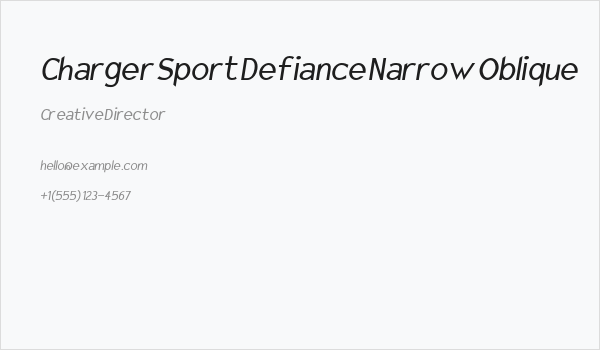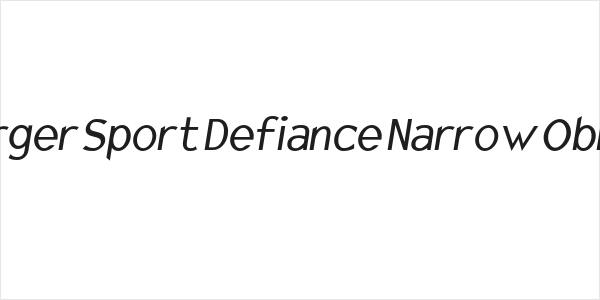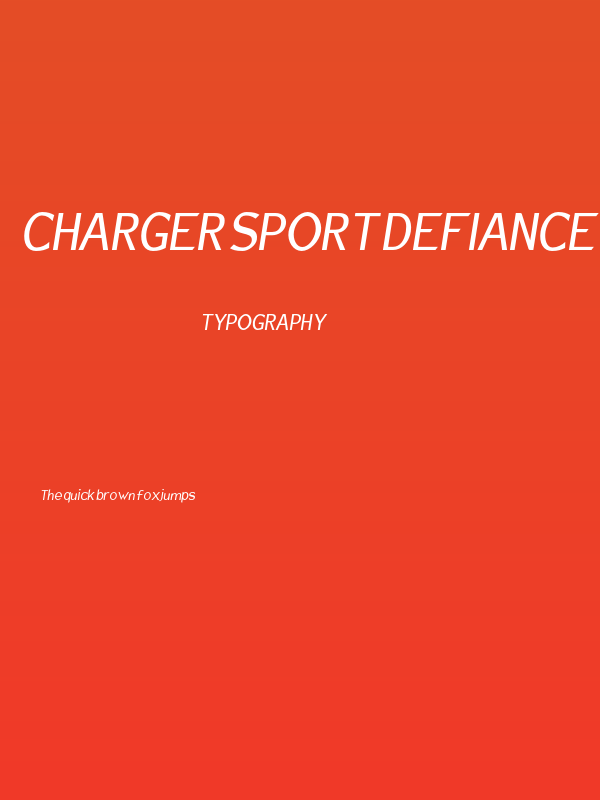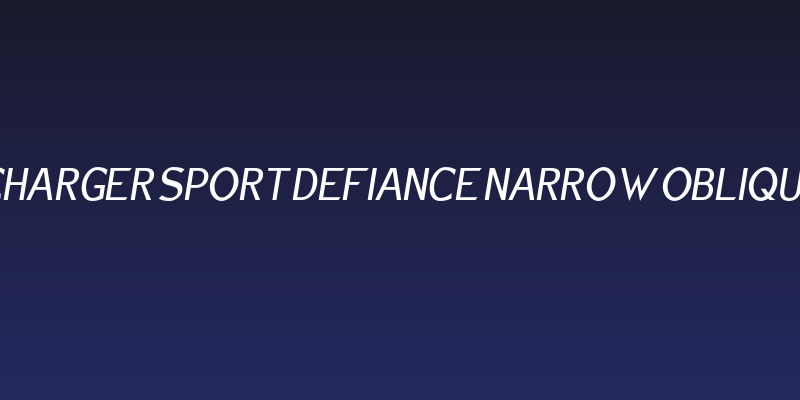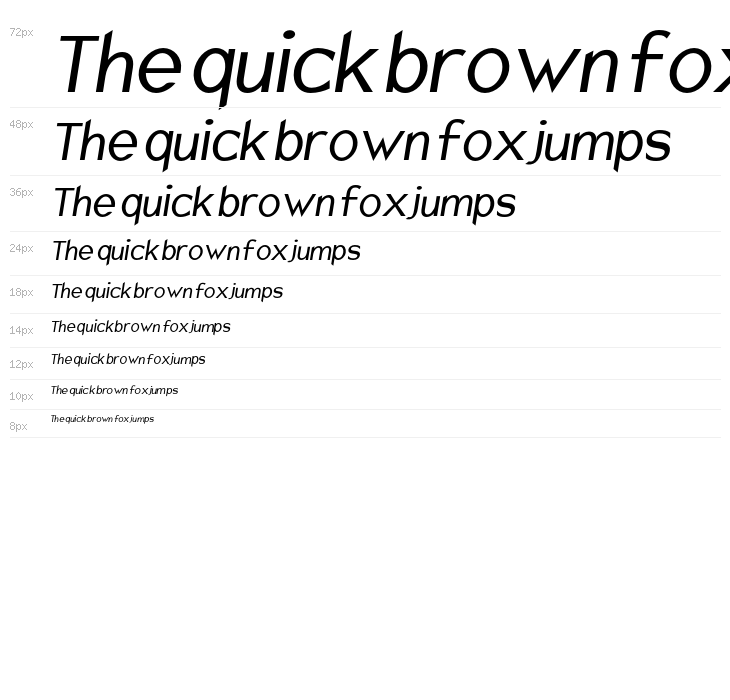
Charger Sport Defiance Narrow Oblique Font
Charger Sport Defiance Narrow Oblique Description
This font exhibits a sleek and modern design with a distinct oblique style, giving it a dynamic and forward-leaning appearance. The characters are narrow, enhancing the sense of movement and speed. It features clean lines and a sans-serif structure, making it highly legible while maintaining a stylish edge. The uppercase and lowercase letters are well-proportioned, and the numerals are clear and consistent with the overall aesthetic. Special characters are included, maintaining the font's cohesive look. This font is ideal for projects that require a contemporary and sporty feel.